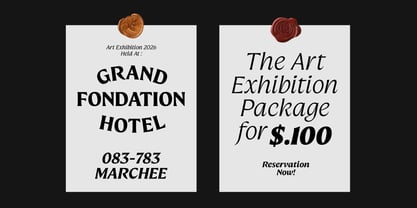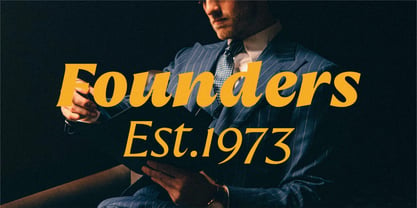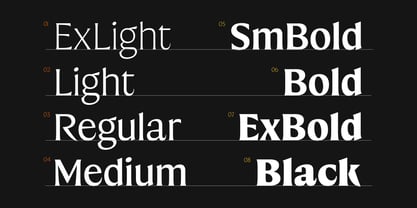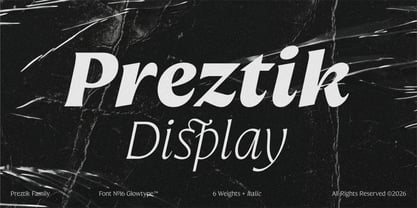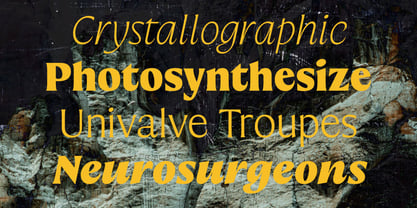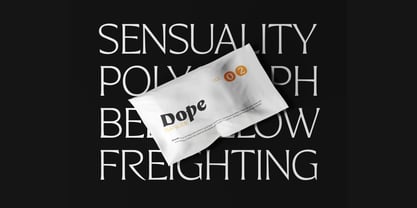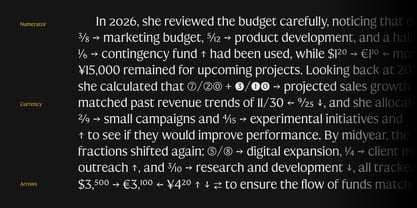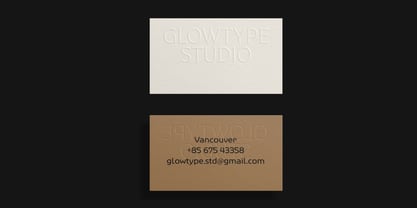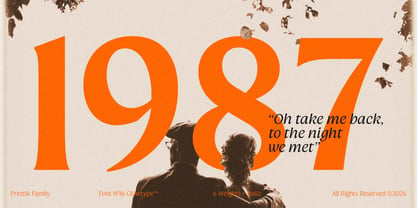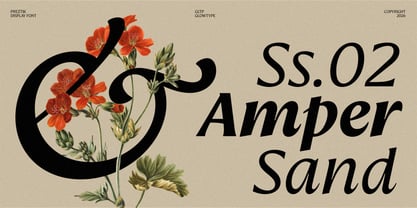
Preztik Variable
La familia tipográfica Preztik Variable fue diseñada por Fachrizal Yusuf y publicada por Glowtype. Preztik Variable contiene 2 estilos y opciones de paquete familiar. Más información sobre esta familia
Preztik is a contemporary variable display type system built on the idea of readiness. Designed to adapt, respond, and move with intention, Preztik balances classical discipline with modern motion—resulting in a typeface that feels both confident and alive. Rooted in serif traditions yet shaped for current visual culture, Preztik features controlled contrast, expressive curves, and sharp terminals that bring clarity at text sizes and authority at display scales. Its rhythm is calm but assertive, allowing the type to perform effortlessly across editorial layouts, branding systems, fashion visuals, and cultural graphics. The variable structure enables seamless transitions across weights, from Extra Light to Black, offering precise typographic control and responsive flexibility. Italics introduce a subtle dynamism, enhancing emphasis without breaking harmony. Preztik is equipped with a robust OpenType feature set, including standard and discretionary ligatures, case-sensitive forms, fractions, oldstyle figures, numerators and denominators, circled numerals, inferiors and superiors, and a refined closed ampersand—ensuring typographic richness for both expressive and functional use. More than a display typeface, Preztik is a system designed for who value preparedness, precision, and presence. Always prepared. Always precise. Cheers & Enjoy! ;)